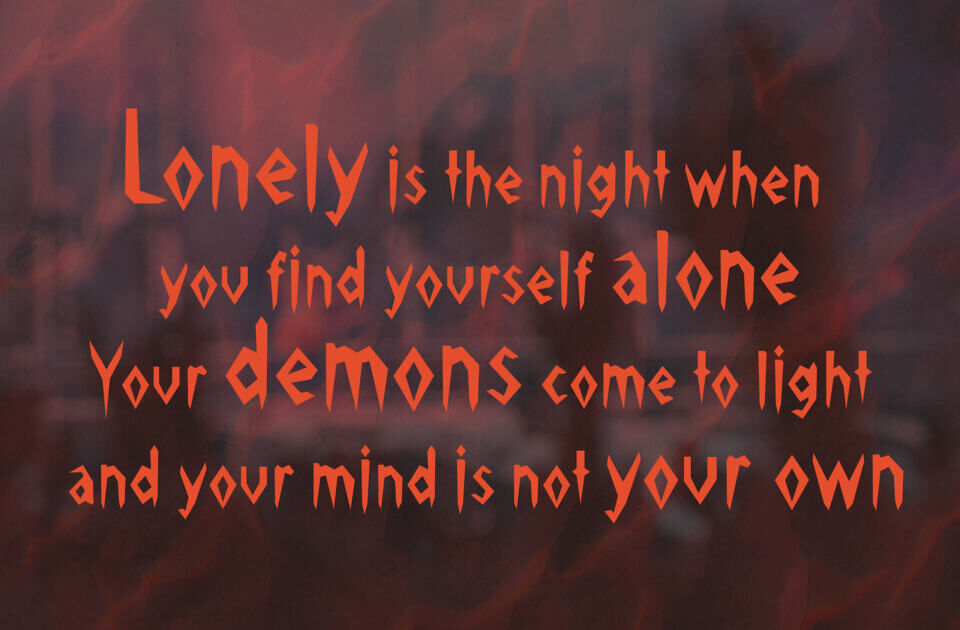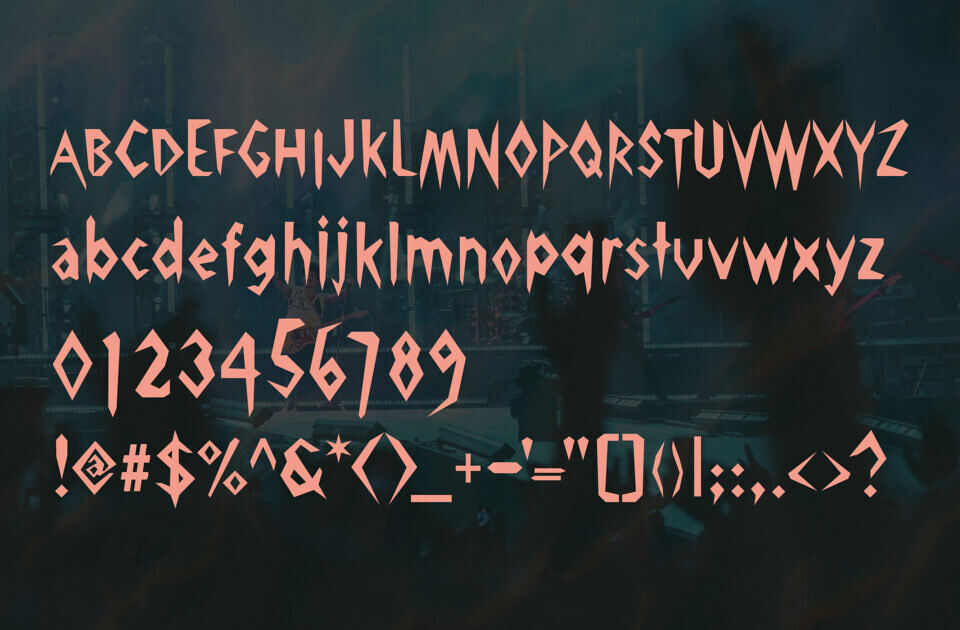
Pick Ax Font
The Pick Ax font embodies a raw, spooky feel with its bold, angular letterforms, reminiscent of carved stone or rusted metal. Its sharp, rugged design and subtle distressing add a tough, weathered charm, making it perfect for rock band logos, horror quotes, heavy-duty branding, or vintage posters.
The font’s sturdy, chiseled look exudes strength and rebellion, ideal for projects needing a masculine, hard-hitting vibe. Uppercase letters dominate, delivering a commanding presence that captures the essence of hard rock and gritty authenticity.